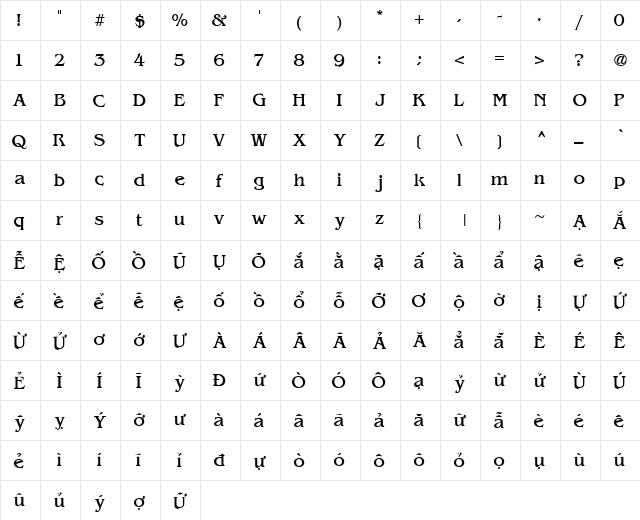
VI Van Tho Normal
Design Context for VI Van Tho Typeface
VI Van Tho offers clean, dependable letterforms without strong stylistic allegiance, making it a practical choice for designers who need flexibility.